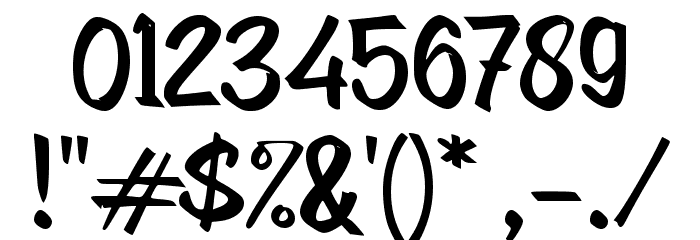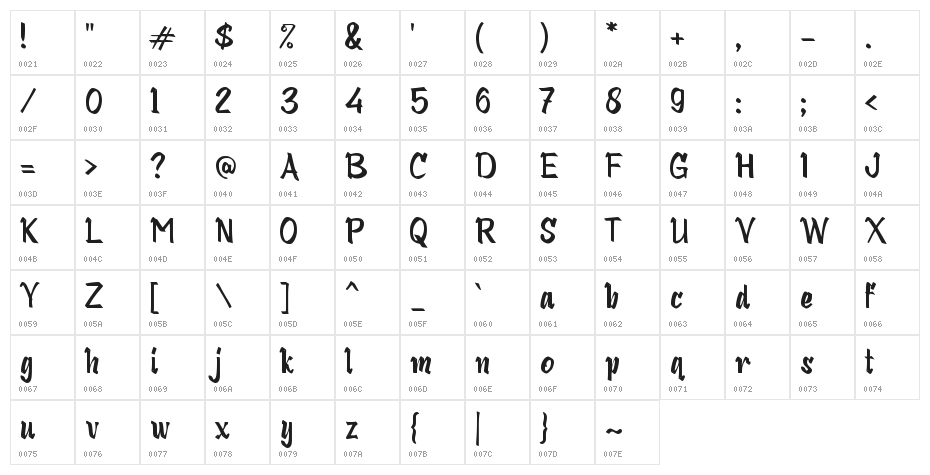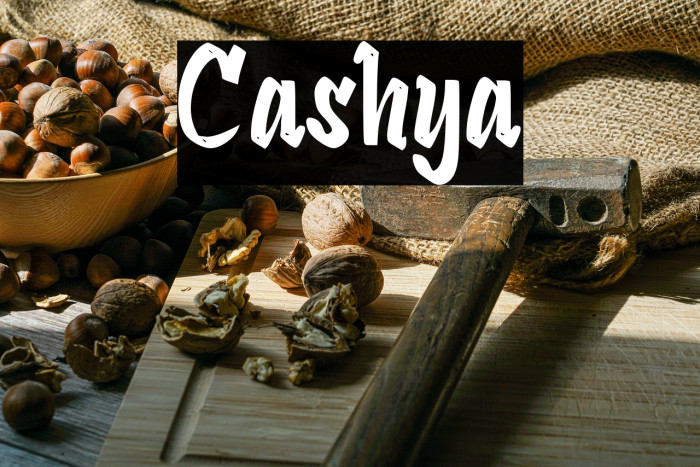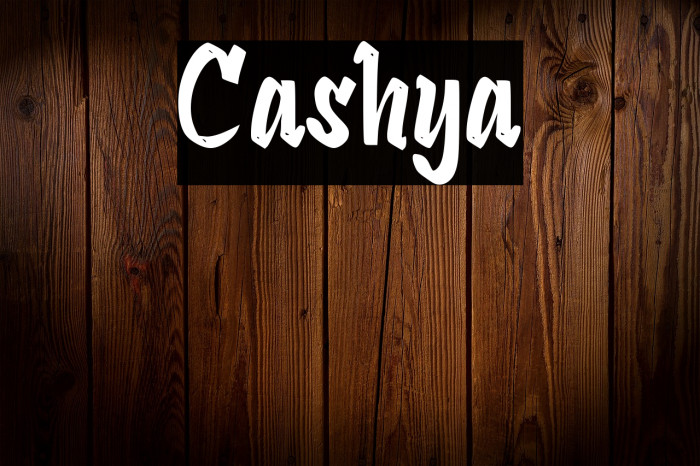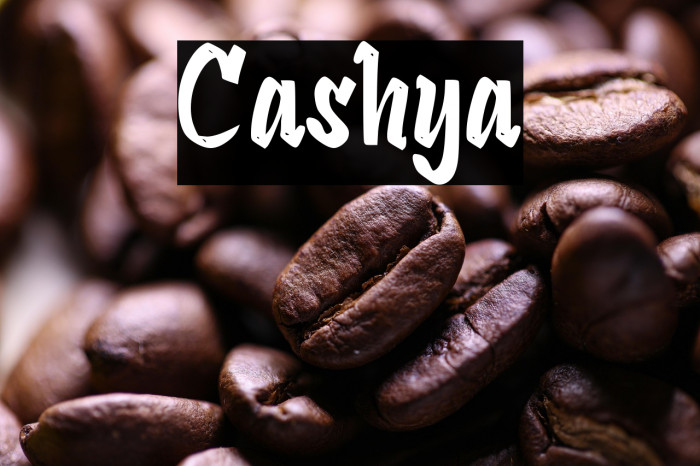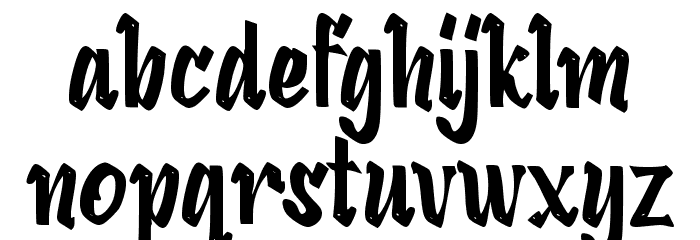
Cashya Font
Cashya Description
This font features a playful and dynamic style with a handwritten appearance. The characters have a slightly irregular and whimsical form, giving them a lively and informal look. The strokes are bold and consistent, with a medium contrast between thick and thin lines. The overall design is casual and approachable, making it suitable for projects that require a friendly and engaging tone. The uppercase and lowercase letters maintain a cohesive style, while the numerals and special characters complement the alphabet with their unique flair.
| Use Case | Headlines, Logos, Casual Text |
| Proposed Projects | Ideal for children's books, greeting cards, playful branding, and casual invitations. |